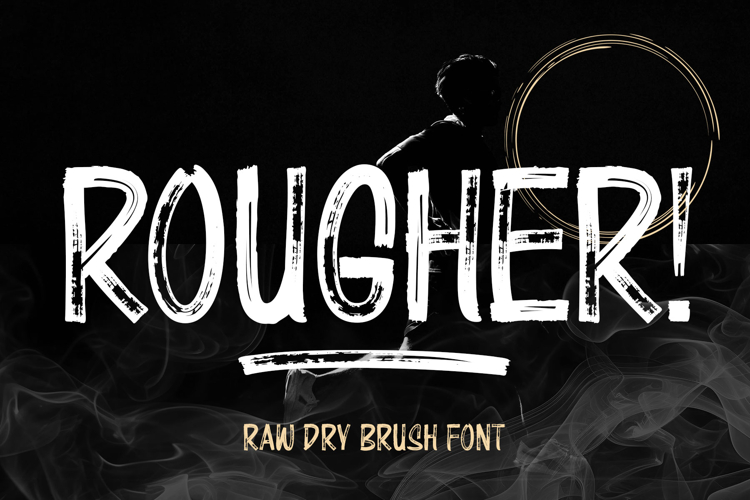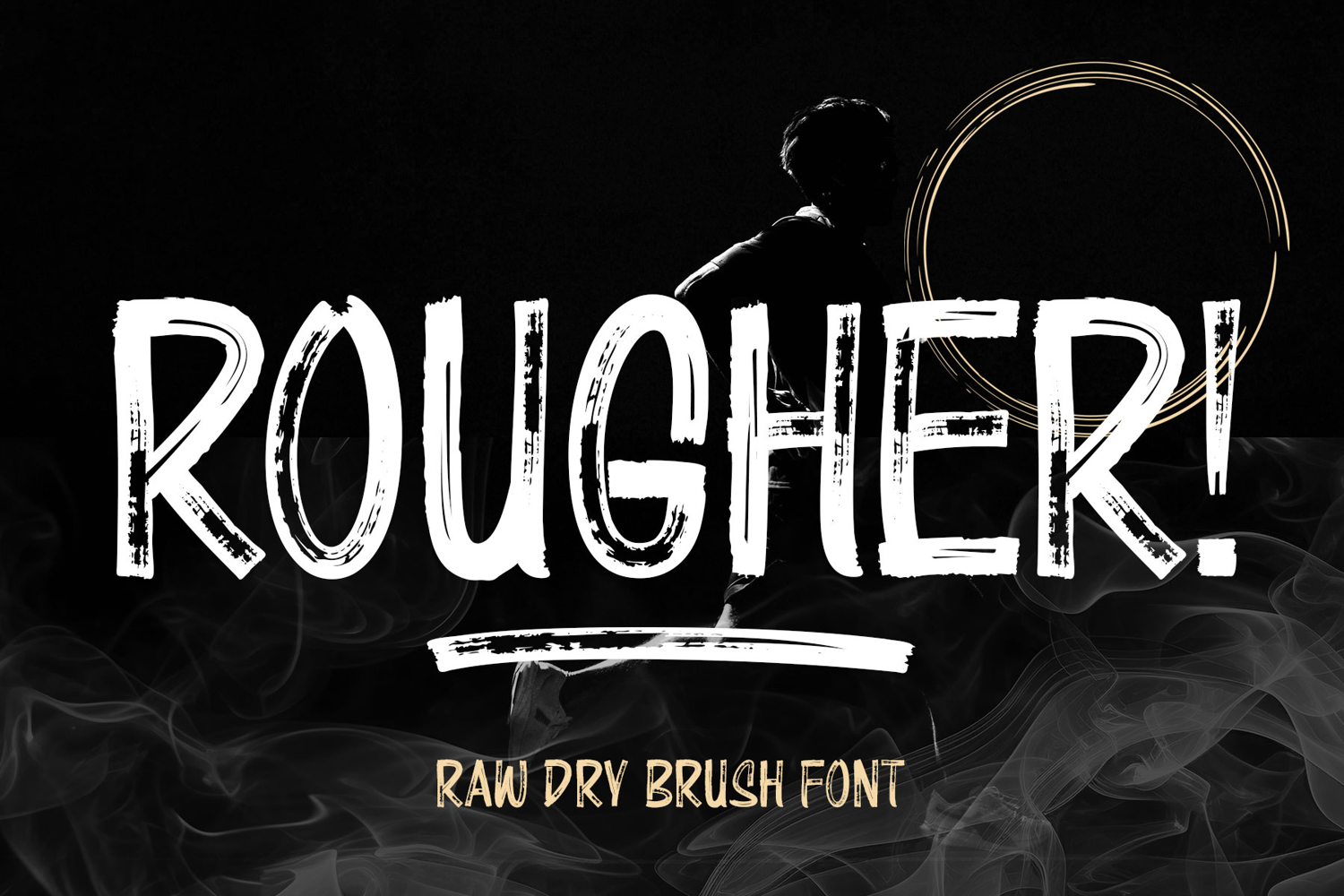
Rougher | Brush Font
ROUGHER is a raw dry brush font designed to bring bold energy and authentic handcrafted character to your creative projects. Featuring rough brush strokes, textured details, and an expressive handmade appearance, this font delivers a strong visual impact while maintaining excellent readability.
Created for designers who want a fearless and organic look, ROUGHER captures the imperfect beauty of real brush lettering. The natural textures and rugged edges add personality and depth, making every word feel alive and full of character.
With its handcrafted feel and rugged brush texture, ROUGHER is perfect for projects that demand attention while maintaining a natural and authentic character. Perfect for posters, branding, logos, product packaging, album covers, t-shirt designs, social media content, outdoor-themed projects, and any creative work that needs a bold and adventurous touch.